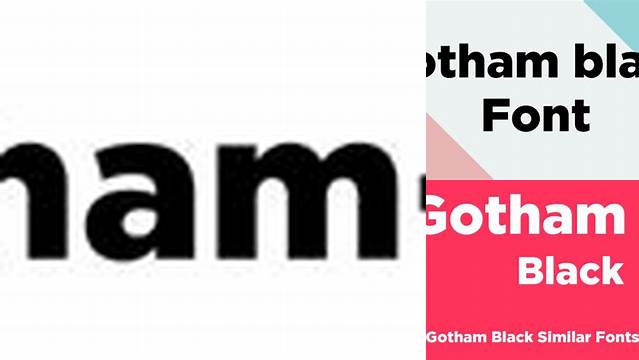
Gotham Black Font: Free Download Guide & Alternatives
Are you on the hunt for Gotham Black font and want to know where to find it for free on Dafont or other sources? Or maybe you're just curious about its origins, similar fonts, and how to use it in your projects? Well, you've landed in the right spot! This comprehensive guide will walk you through everything you need to know about this popular typeface. Let's dive in!
What is Gotham Black Font?
Gotham Black is a sans-serif typeface that exudes modernity and sophistication. Designed by Tobias Frere-Jones and Jesse Ragan, it was commissioned for GQ magazine in 2000. Its clean, geometric forms make it highly legible and versatile, suitable for a wide range of applications. The font's popularity soared after it was used in Barack Obama's 2008 presidential campaign, cementing its place in the design world. Gotham Black is part of the larger Gotham family, which includes various weights and styles, from thin to extra bold, offering designers a comprehensive toolkit for their typographic needs. This font is often chosen for its ability to convey both authority and approachability, making it a favorite for branding, advertising, and editorial design.
Its design is inspired by the architectural signage of New York City, reflecting an honest and unpretentious aesthetic. This gives it a distinct character that resonates with urban landscapes and contemporary design trends. Whether you're designing a logo, creating a website, or working on a print campaign, Gotham Black can provide the visual impact and clarity you need. Its geometric structure ensures that it remains legible even at smaller sizes, while its bold weight commands attention in headlines and titles. The Gotham family’s extensive range of weights allows for nuanced typographic hierarchies, ensuring that your design remains cohesive and professional. In essence, Gotham Black is a powerful and versatile typeface that can elevate any project with its modern and sophisticated appeal.
Fonts Similar to Gotham Black
If you're looking for alternatives to Gotham Black, either for budget reasons or stylistic variations, plenty of fonts offer a similar vibe. Here are a few standouts:
- Montserrat: A popular free font available on Google Fonts. It shares Gotham's geometric sans-serif structure and is highly legible.
- Lato: Another excellent free option from Google Fonts. Lato has a slightly warmer feel than Gotham but maintains a similar level of clarity.
- Proxima Nova: A widely used commercial font known for its clean and modern appearance. It's a strong alternative if you want something similar in quality to Gotham.
- Open Sans: A versatile and highly readable sans-serif font that is available for free from Google Fonts. It's a great choice for body text and headlines alike.
These fonts provide a range of options for designers seeking a modern, sans-serif typeface without the cost of Gotham. Montserrat, with its geometric precision, offers a close resemblance and is ideal for projects where budget is a primary concern. Lato, on the other hand, introduces a touch of warmth and approachability, making it suitable for designs that require a friendly and inviting feel. Proxima Nova stands out as a premium alternative, delivering a similar level of sophistication and clarity as Gotham, while Open Sans excels in readability and versatility, making it an excellent choice for a wide range of applications. When selecting a substitute, consider the specific needs of your project, including the desired tone, legibility requirements, and budget constraints. Each of these fonts brings its unique characteristics to the table, allowing you to find the perfect fit for your design vision.
So, while you likely won't find Gotham Black font for free download on Dafont, there are legitimate ways to acquire and use this fantastic typeface. Whether you purchase a license, explore trial versions, or opt for similar fonts, Gotham Black remains a powerful tool for creating modern and impactful designs. Happy designing, folks!